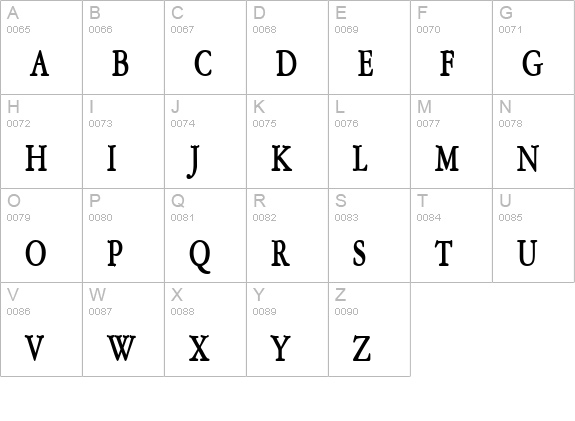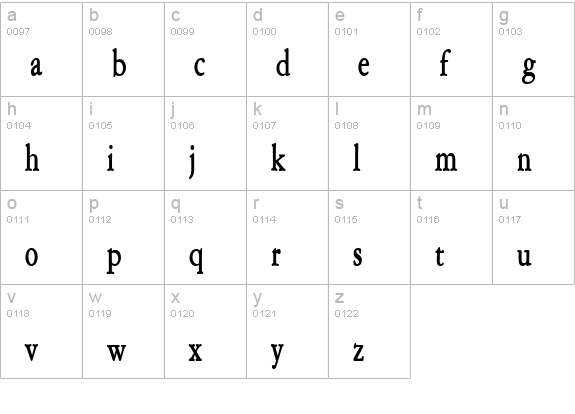
Amery Condensed Bold is a strong, high-contrast, condensed-width variant in the Amery typeface family \xE2\x80\x94 well suited to headlines, attention-grabbing titles, and strong calls-to-action.
Amery Condensed Bold font is a sleek and modern typeface that exudes confidence and strength. Its bold and condensed design makes it perfect for headlines, titles, and other eye-catching text. The sharp angles and clean lines give this font a contemporary and professional look. What's even better is that Amery Condensed Bold font is free to download at FontsMarket.com. This means you can enhance your design projects without breaking the bank. Whether you're working on a poster, logo, website, or any other creative project, Amery Condensed Bold font is sure to make a bold statement. Add this versatile font to your collection today and take your designs to the next level.